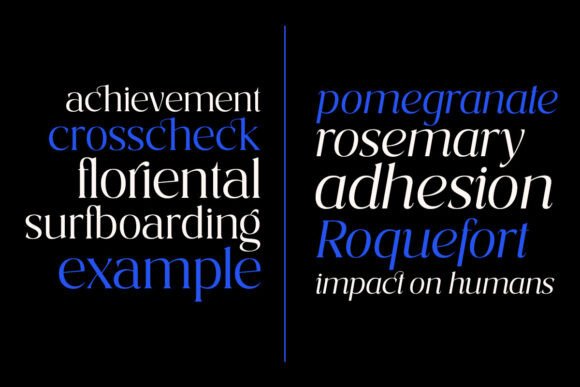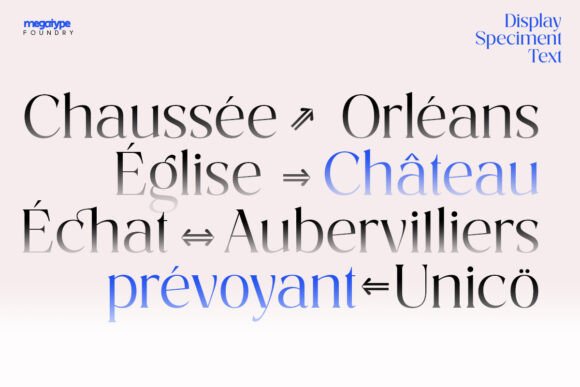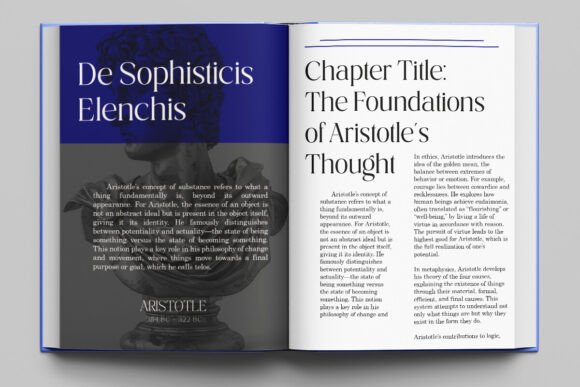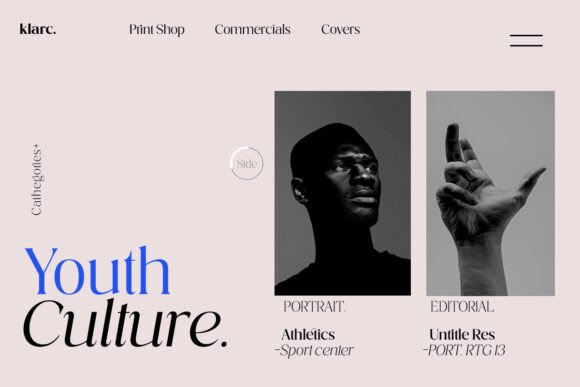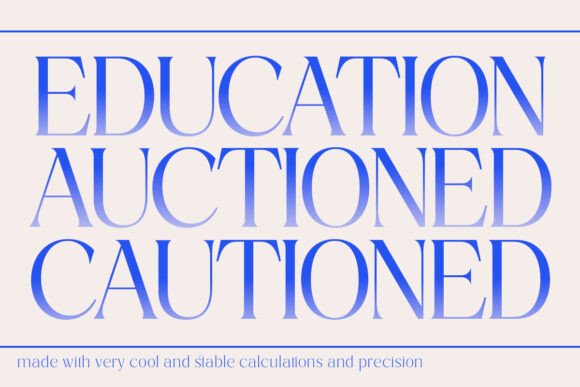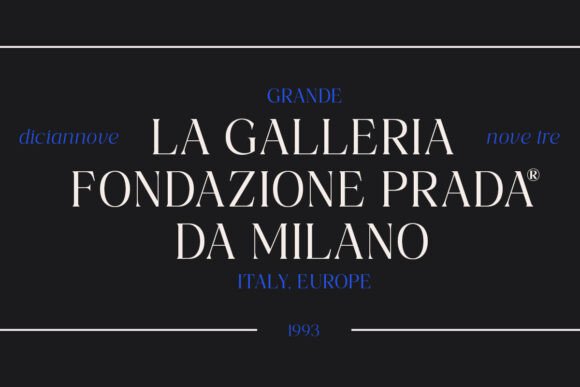
Introducing Costaline Regular Font: Elevate Your Designs with Classic Elegance
In the world of typography, a well-crafted font can make all the difference in elevating a design from ordinary to extraordinary. For designers and crafters seeking a harmonious and stylish contemporary serif typeface with a classic feel, look no further than Costaline Regular Font. This versatile font is designed to inspire creativity and refine beautiful designs, revealing many visual nuances and hidden secrets.
What is Costaline Regular Font?
Costaline Regular is a thoughtfully designed serif typeface that strikes a perfect balance between modernity and classic elegance. Its clean lines, precise curves, and balanced proportions make it an ideal choice for a wide range of design projects. Whether you’re working on editorial designs, headlines, branding projects, logo design, packaging, magazine titles, advertisements, or web design, Costaline Regular Font is the perfect companion to help you achieve your creative vision.
Key Features of Costaline Regular Font
- Contemporary Serif Design: Costaline Regular boasts a modern serif design that exudes sophistication and elegance, making it perfect for designs that require a touch of classic charm.
- Variety of Styles: The font comes with both vertical and italic styles, providing designers with the flexibility to experiment and refine their designs with ease.
- Legibility and Readability: The font’s carefully crafted letterforms ensure excellent legibility and readability, making it suitable for both short and long texts.
- Versatility: Costaline Regular Font can be used across various design projects, including editorial design, headlines, branding projects, logo design, packaging, magazine titles, advertisements, and web design.
Benefits of Using Costaline Regular Font
By incorporating Costaline Regular Font into your design projects, you can:
- Elevate Your Designs: Add a touch of classic elegance and sophistication to your designs, making them stand out from the crowd.
- Enhance Readability: Ensure that your message is conveyed clearly and effectively, whether it’s in a headline, body text, or caption.
- Streamline Your Workflow: With its versatile design and range of styles, Costaline Regular Font can help you work more efficiently, saving you time and effort.
- Explore New Creative Possibilities: The font’s unique characteristics and nuances invite designers to experiment and push the boundaries of their creativity.
Who Can Benefit from Costaline Regular Font?
Costaline Regular Font is an excellent addition to any designer’s toolkit, particularly:
- Graphic Designers: Those working on branding projects, logo design, packaging, and editorial design will appreciate the font’s versatility and classic charm.
- Web Designers: Costaline Regular Font can add a touch of elegance and sophistication to websites, making them more engaging and user-friendly.
- Advertising and Marketing Professionals: The font’s legibility and readability make it perfect for creating effective advertisements and marketing materials.
- Art Directors: Those seeking to create visually stunning designs will appreciate the font’s unique characteristics and nuances.
In conclusion, Costaline Regular Font is a powerful tool for designers and crafters seeking to elevate their designs with classic elegance and sophistication. Its harmonious and stylish contemporary serif design, variety of styles, and versatility make it an excellent choice for a wide range of design projects. By incorporating Costaline Regular Font into your workflow, you can streamline your design process, explore new creative possibilities, and create stunning designs that leave a lasting impression.